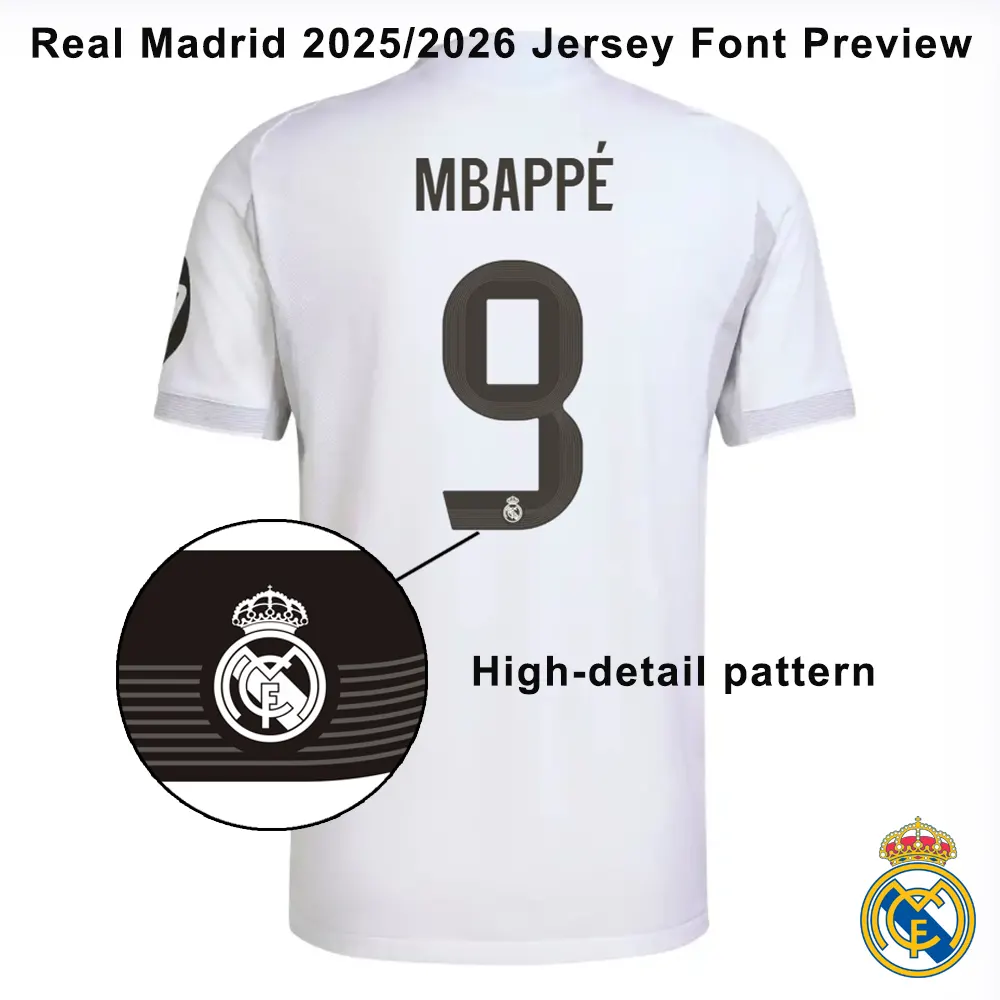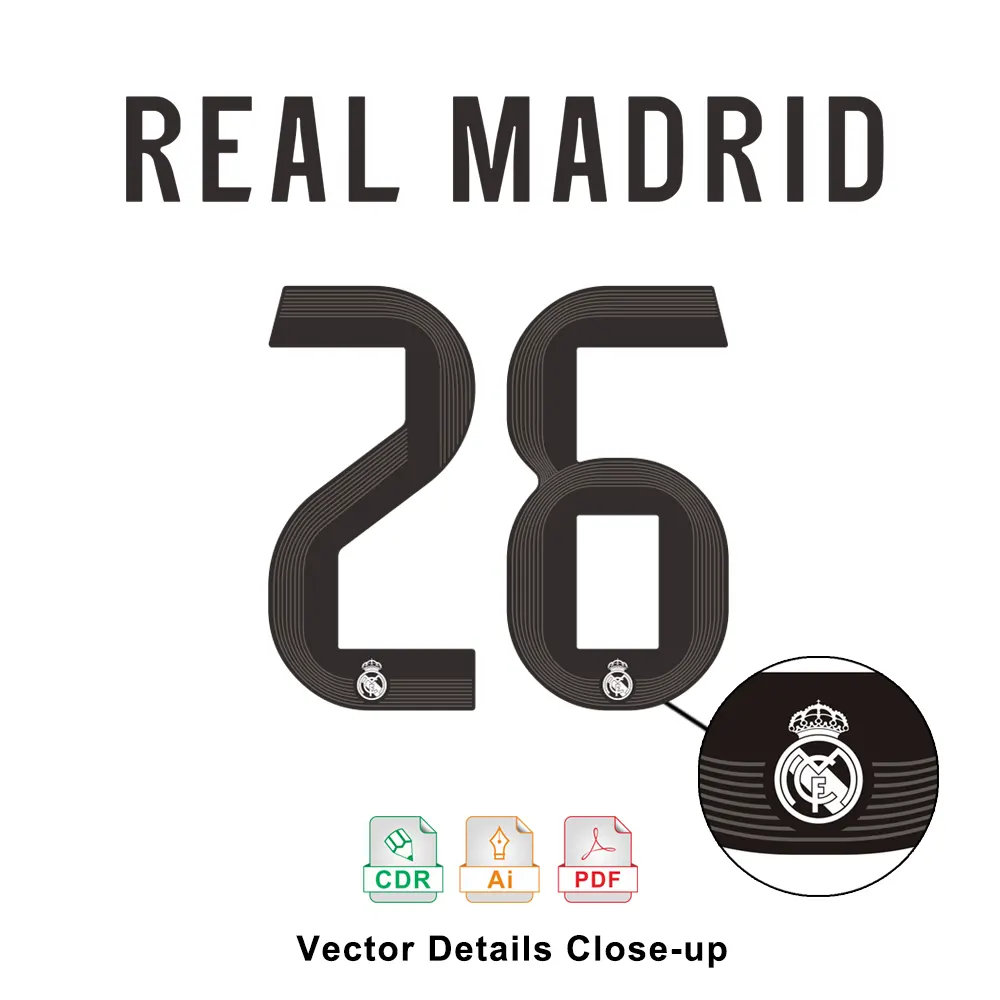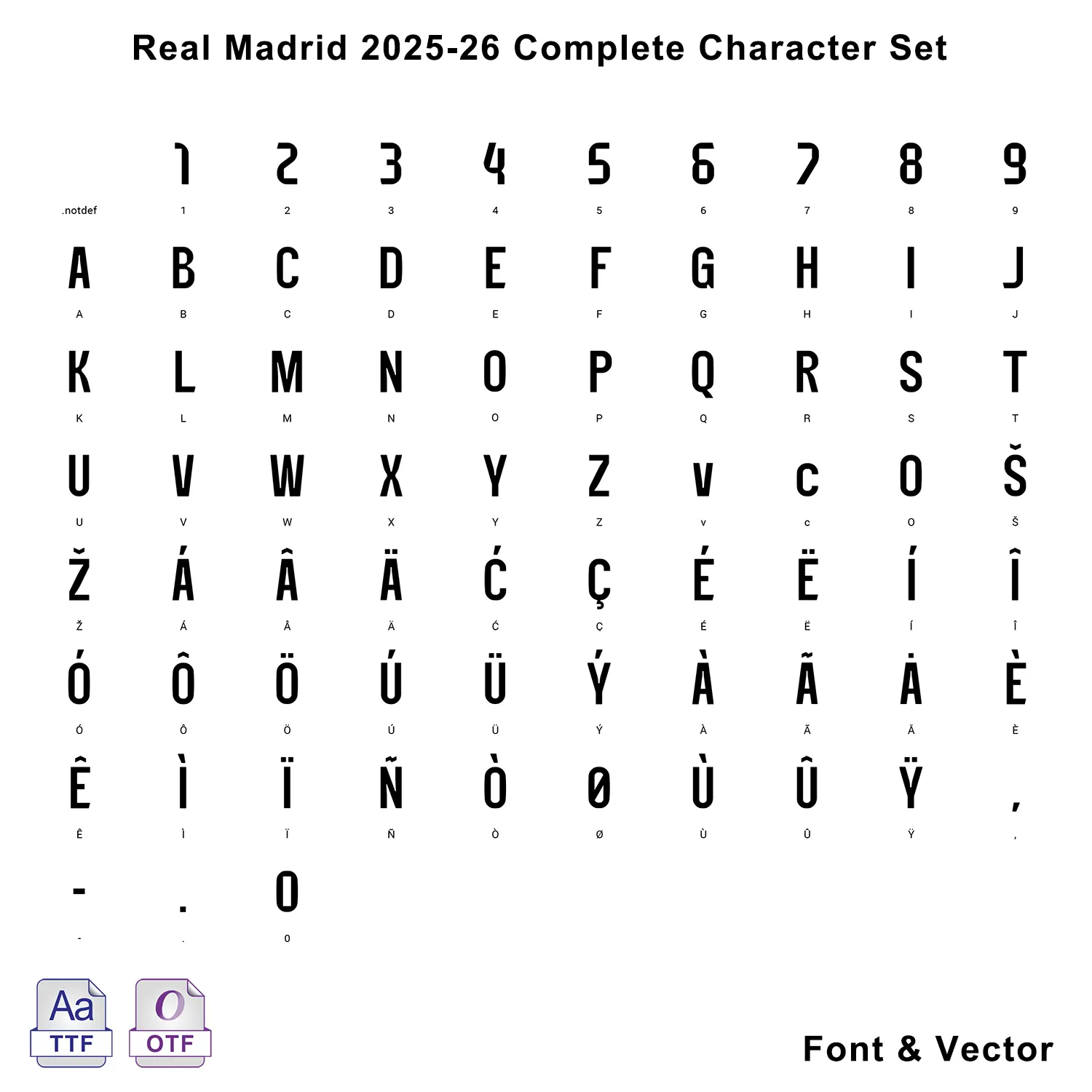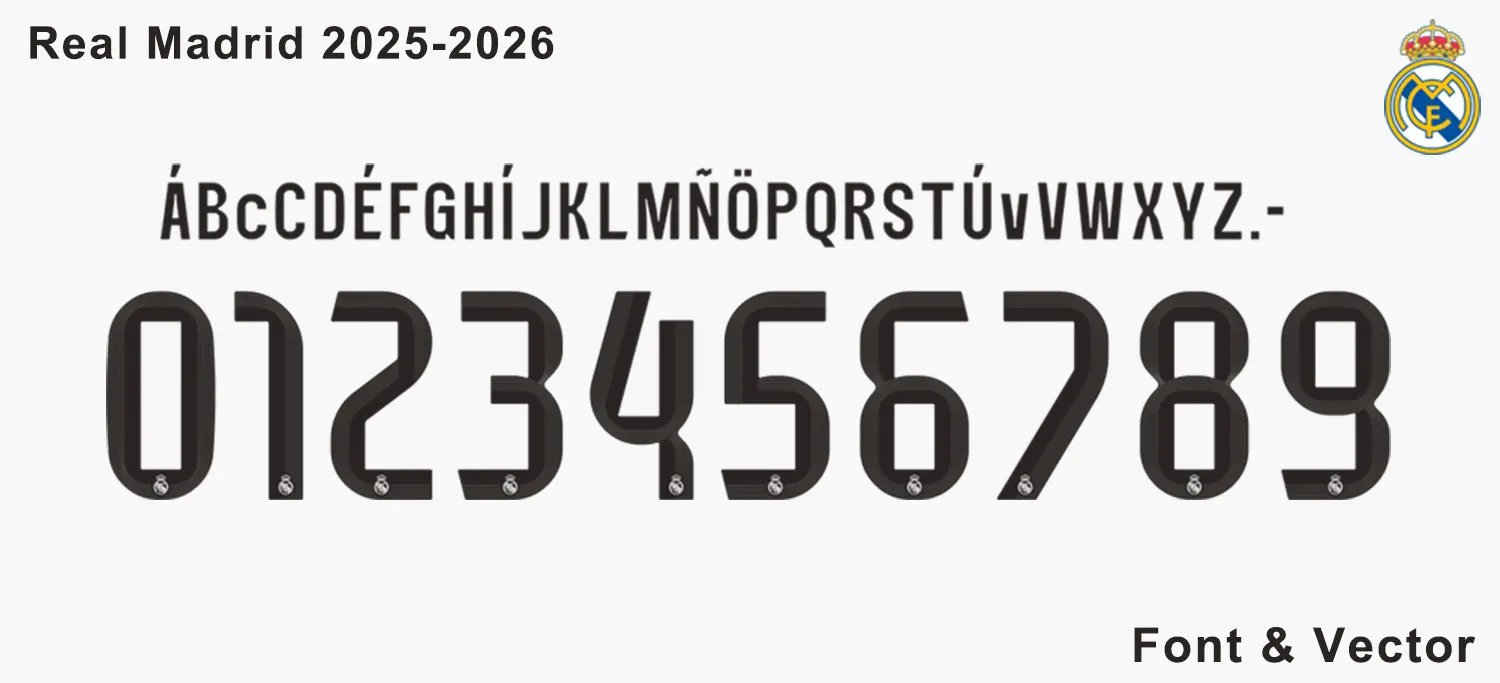
Embrace the Future: The Official Real Madrid 2025/2026 Season Font
Step into the new season with the official typeface of Los Blancos. This is the complete Real Madrid 2025/2026 font, as seen on the jerseys of your favorite players at the Santiago Bernabéu. Whether you’re a graphic designer, a die-hard fan creating custom apparel, or a content creator, this font package provides everything you need for authentic and professional-looking designs.